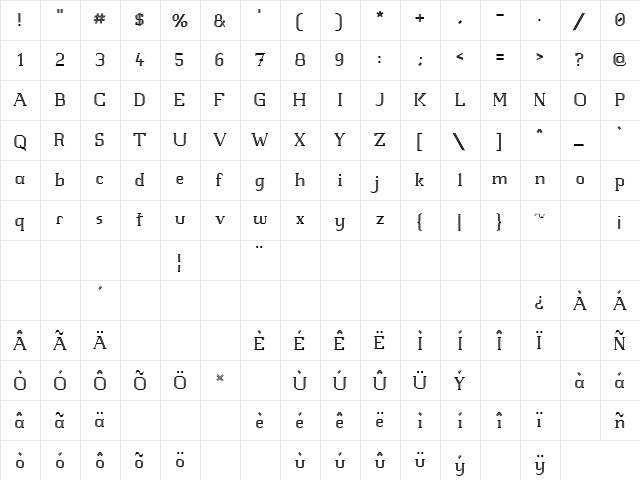
White Line Fever 1.00 Regular
Design Context for White Line Fever 1.00 Typeface
White Line Fever 1.00 is a composed and adaptable typeface that performs quietly and consistently across a wide range of design contexts.